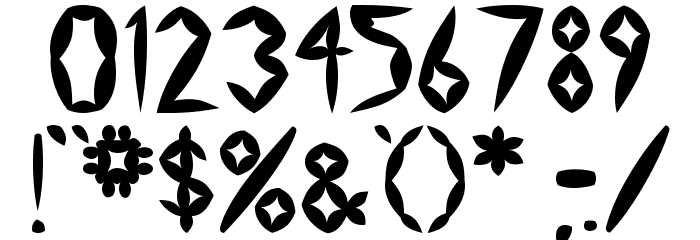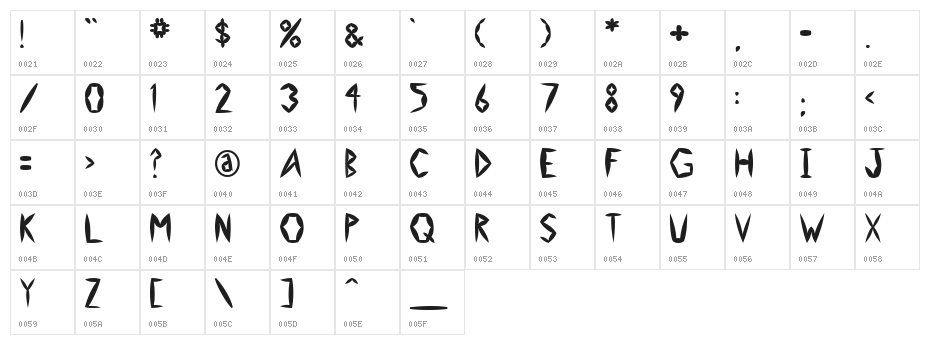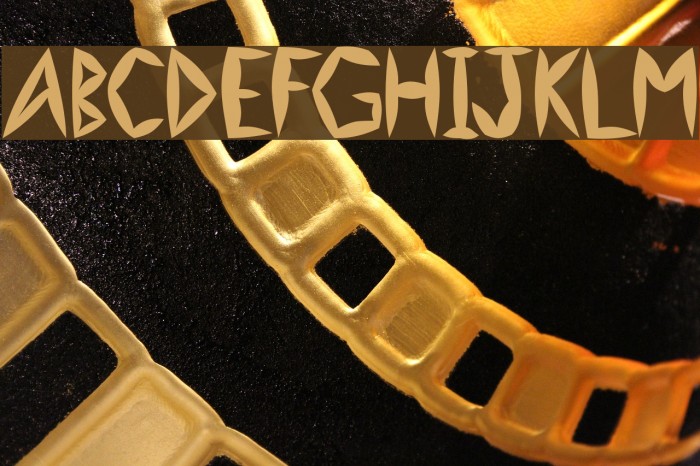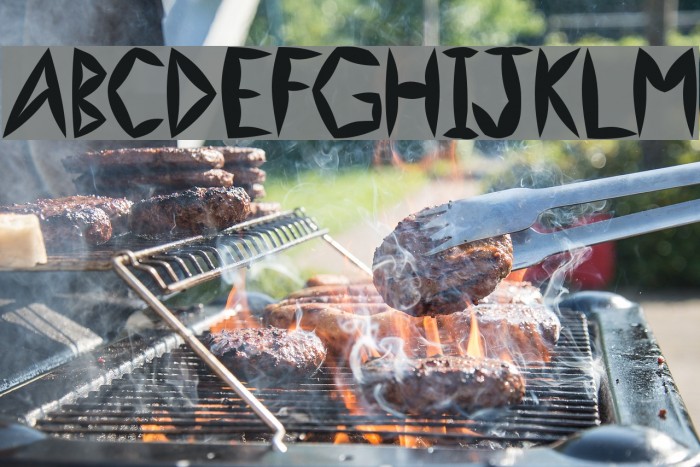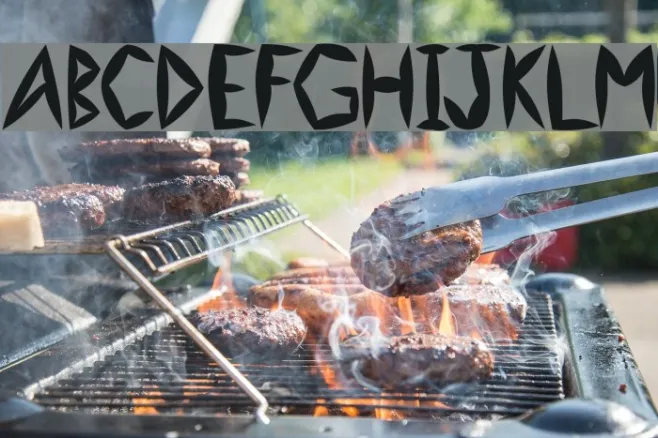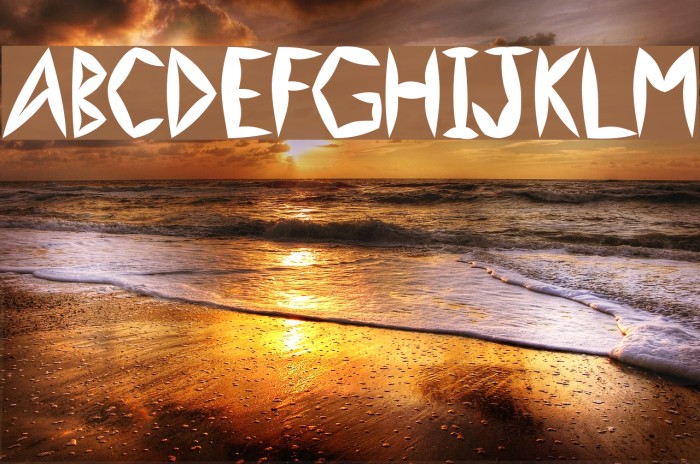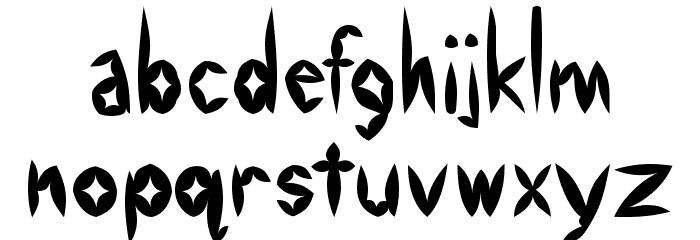
Swollen Slightly Font
Swollen Slightly Description
This font features a bold and dynamic design with sharp, angular edges and a slightly distorted appearance. The characters are thick and irregular, giving them a unique, edgy look that stands out. The uppercase and lowercase letters maintain a consistent style, with exaggerated curves and pointed tips. Numbers and special characters follow the same aesthetic, ensuring a cohesive appearance across all glyphs. The font's distinctive style makes it suitable for eye-catching designs and creative projects.
| Overall Style | Modern, Edgy |
| Proposed Projects | Ideal for posters, album covers, branding, and any project requiring a bold, standout typeface. |